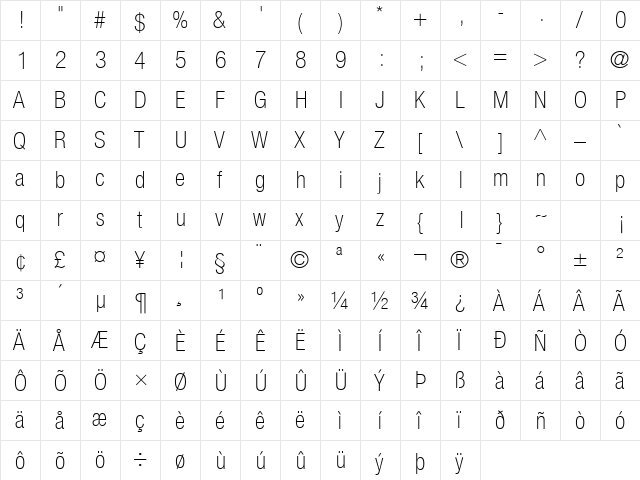
Context Reprise ThinCond SSi Normal Font Preview
Design Context for Context Reprise ThinCond SSi Typeface
Context Reprise ThinCond SSi takes a measured approach to typography — its balanced proportions and neutral character make it a reliable workhorse for both digital and print work. The delicate stroke weight brings airiness and refinement to layouts. The condensed width makes it efficient for tight spaces without sacrificing legibility.